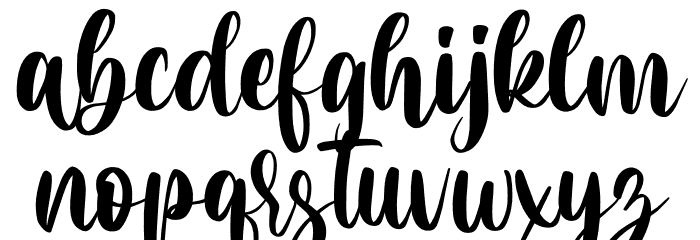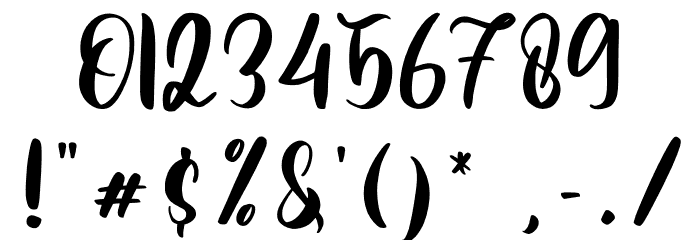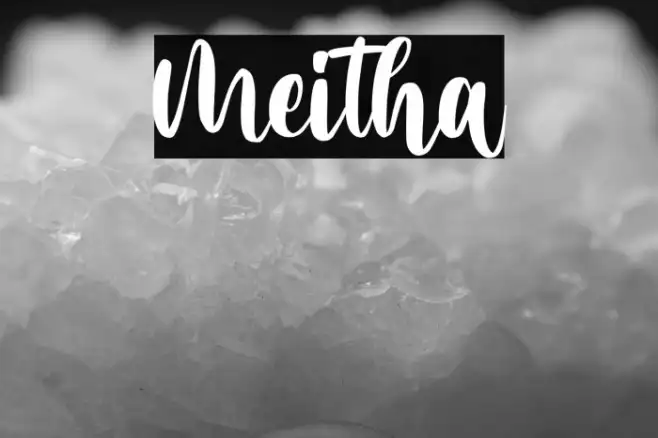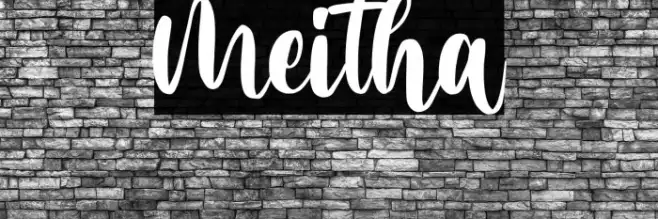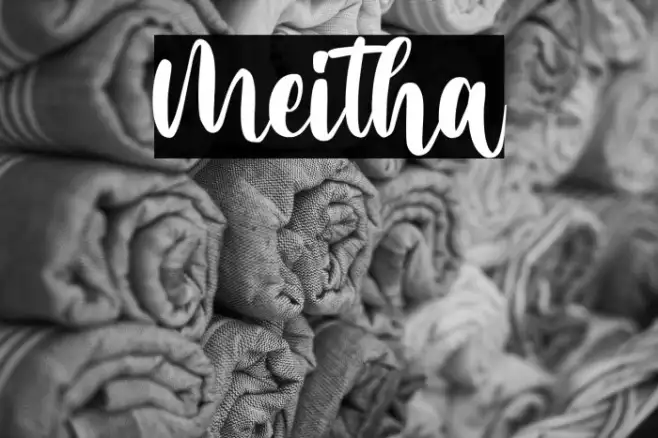
Meitha Font
This font features a bold and expressive script style with a modern flair. The letters are interconnected, creating a flowing and dynamic appearance. The strokes are thick and consistent, providing a strong visual impact. Each character is crafted with a sense of movement, making it ideal for designs that require a personal and artistic touch. The uppercase letters are slightly more elaborate, while the lowercase letters maintain a cohesive and harmonious look. The numerals and special characters are designed to match the overall style, ensuring versatility in various applications.
A bold, expressive script font with interconnected, flowing letters.
- Proposed Projects: Ideal for wedding invitations, branding, social media graphics, and artistic posters.
- Category: Script
- Character Spacing: Tight
- Use Case: Logos, Headlines, Decorative text